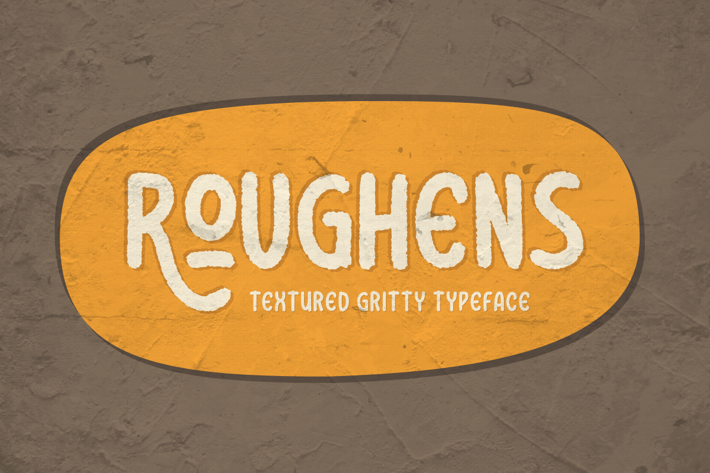
Roughens Typeface
MartypeCo
Roughens is a family slab serif font designed with carefully handcrafted. Also suitable for branding, T-shirt, Wedding Invitation, Classic Design, Logotype, and any project. With two style make you easier to design everythings.
Roughens Regular
Roughens Slant
Multilingual Support support many different languages 20+ .